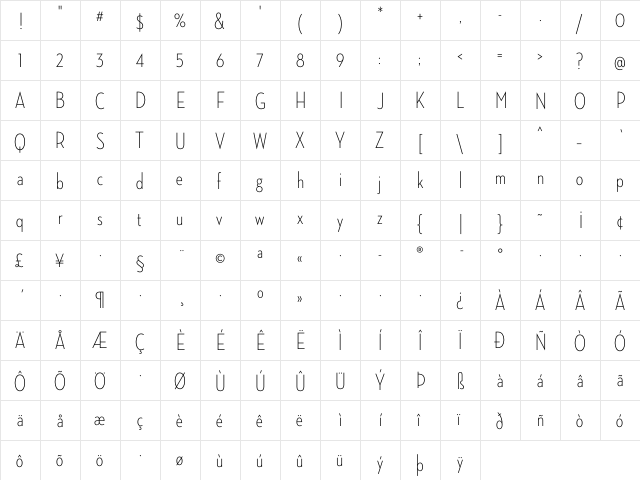
Neutraface Condensed Light
| Designer | Christian Schwartz |
Design Context for Neutraface Condensed Typeface
Neutraface Condensed is a composed and adaptable typeface that performs quietly and consistently across a wide range of design contexts. The delicate stroke weight brings airiness and refinement to layouts. Its narrow stance lets it pack a punch even in space-constrained designs.